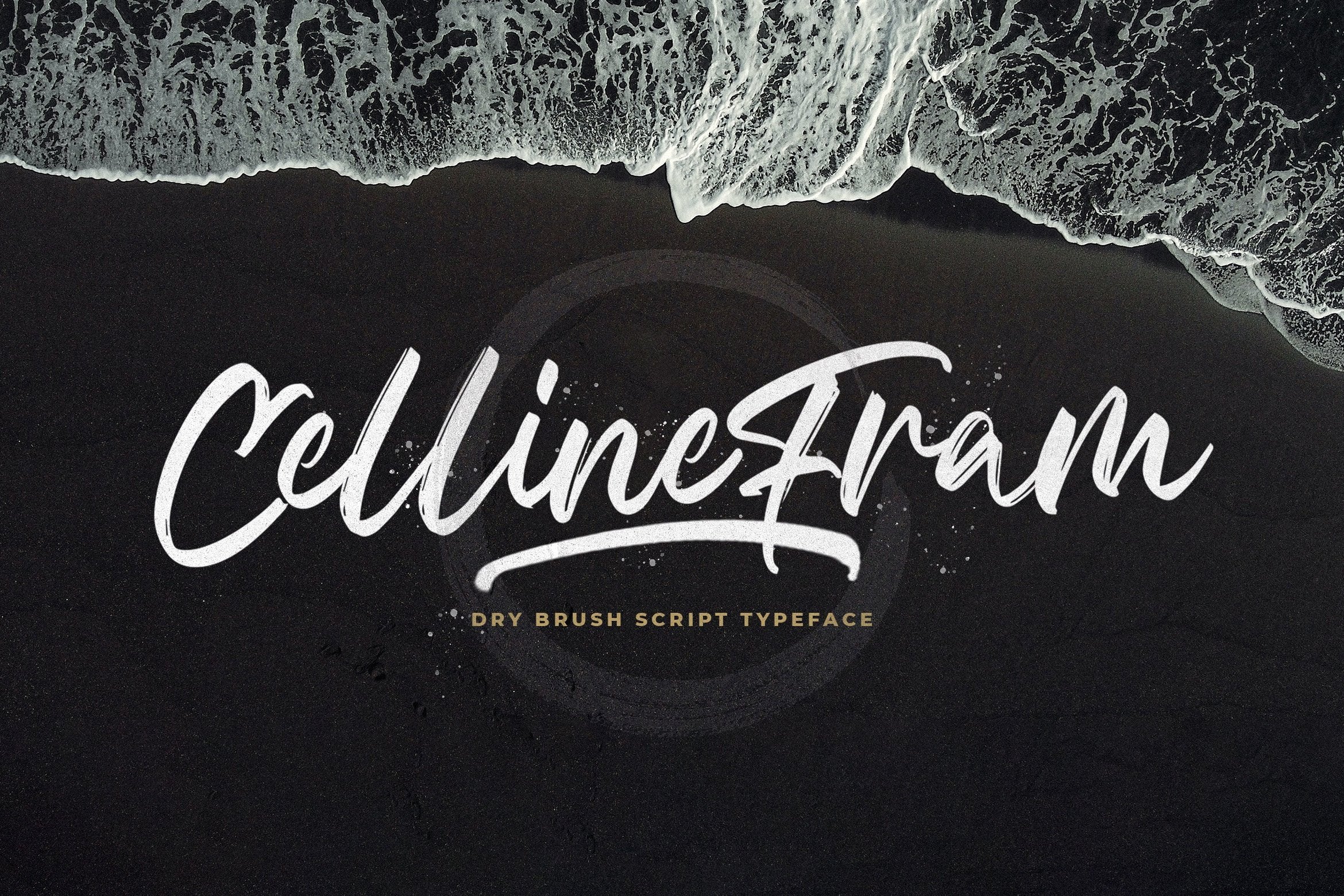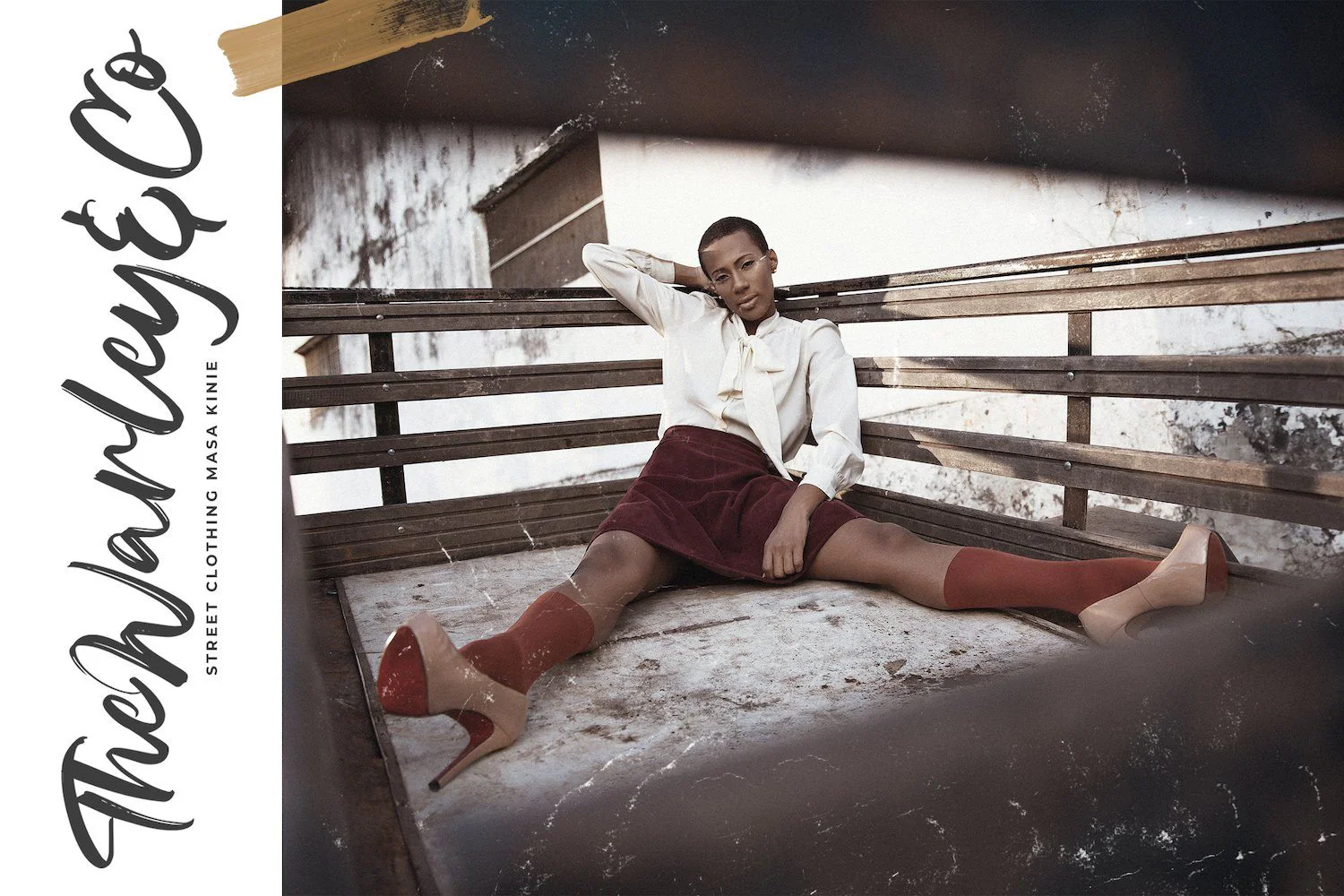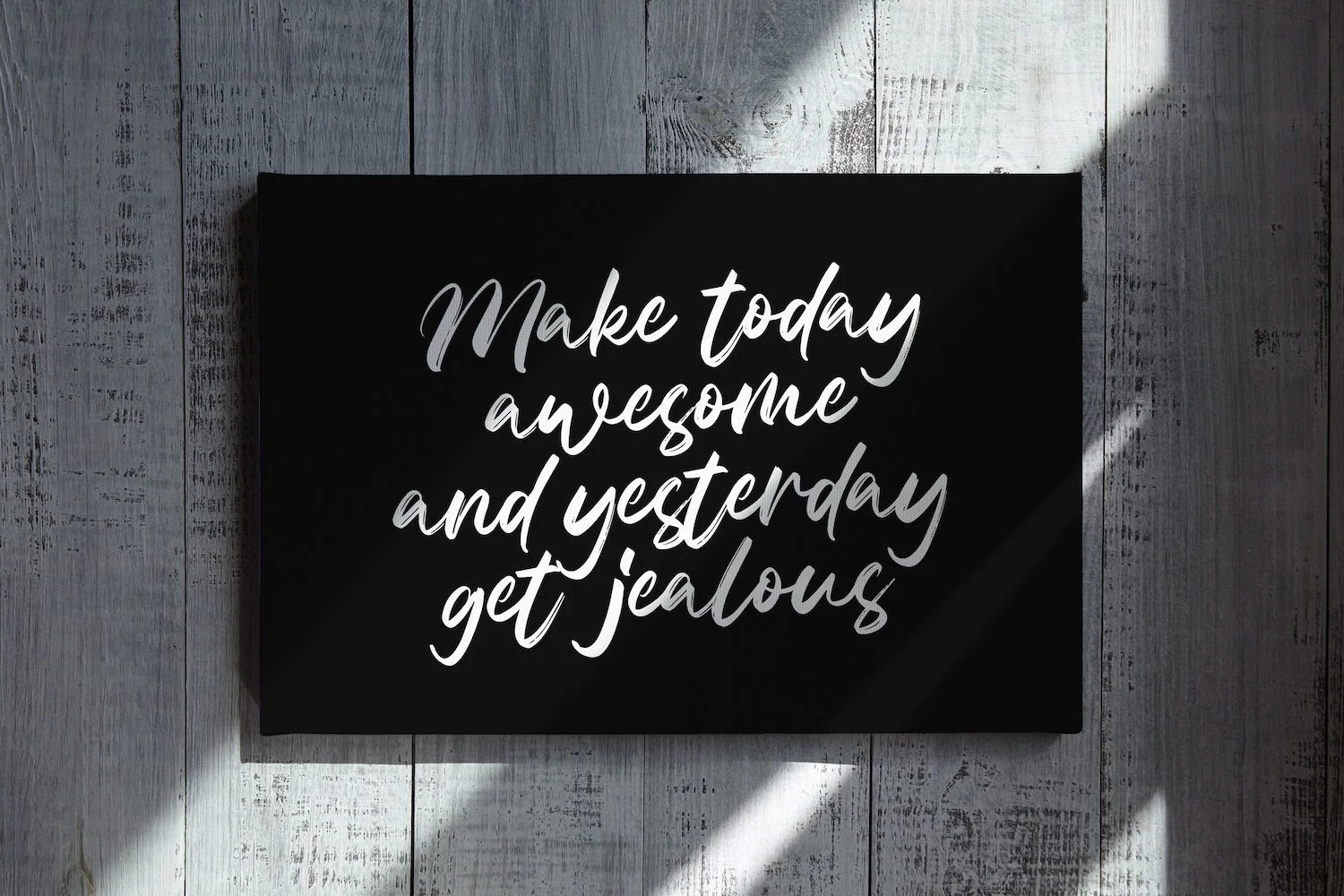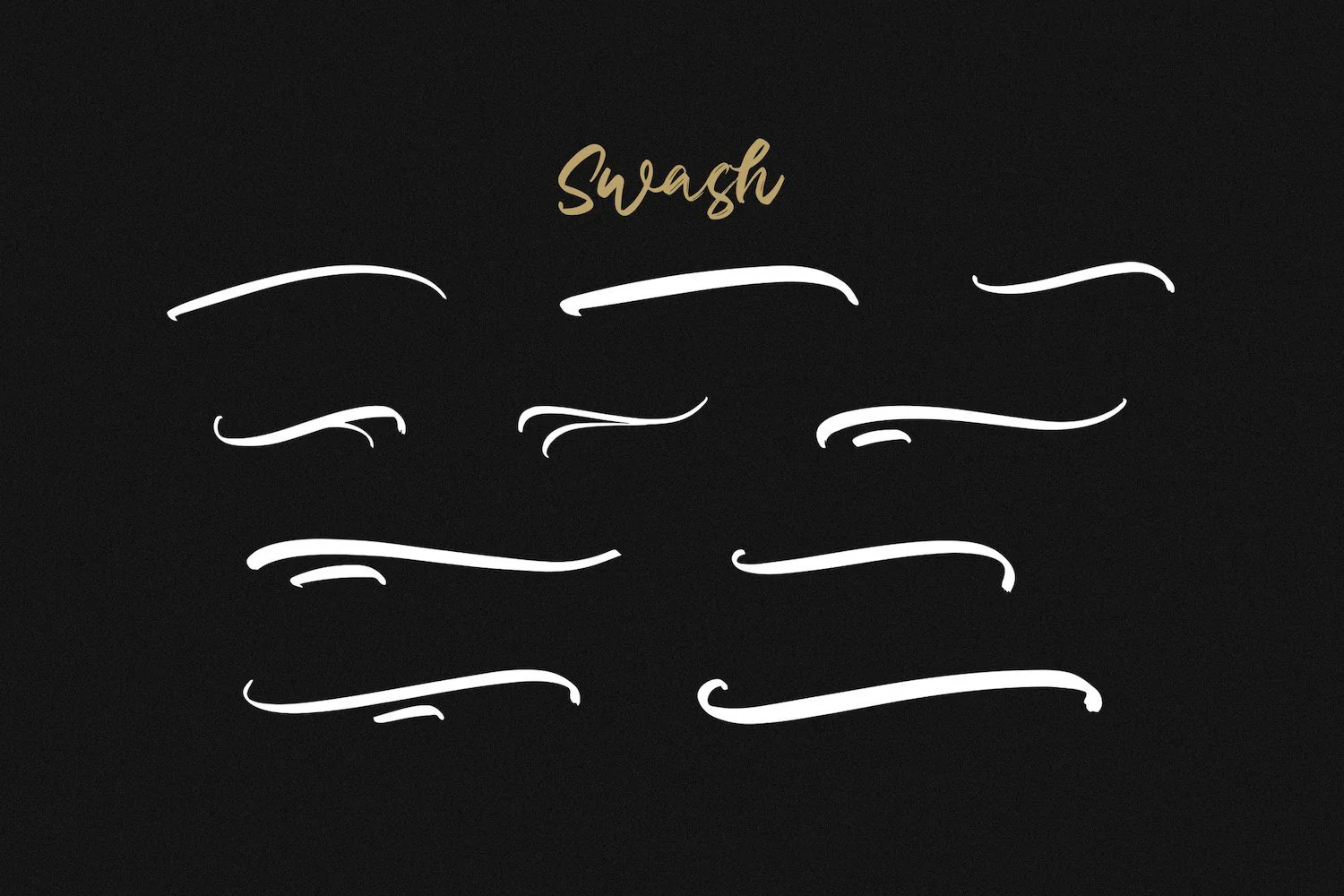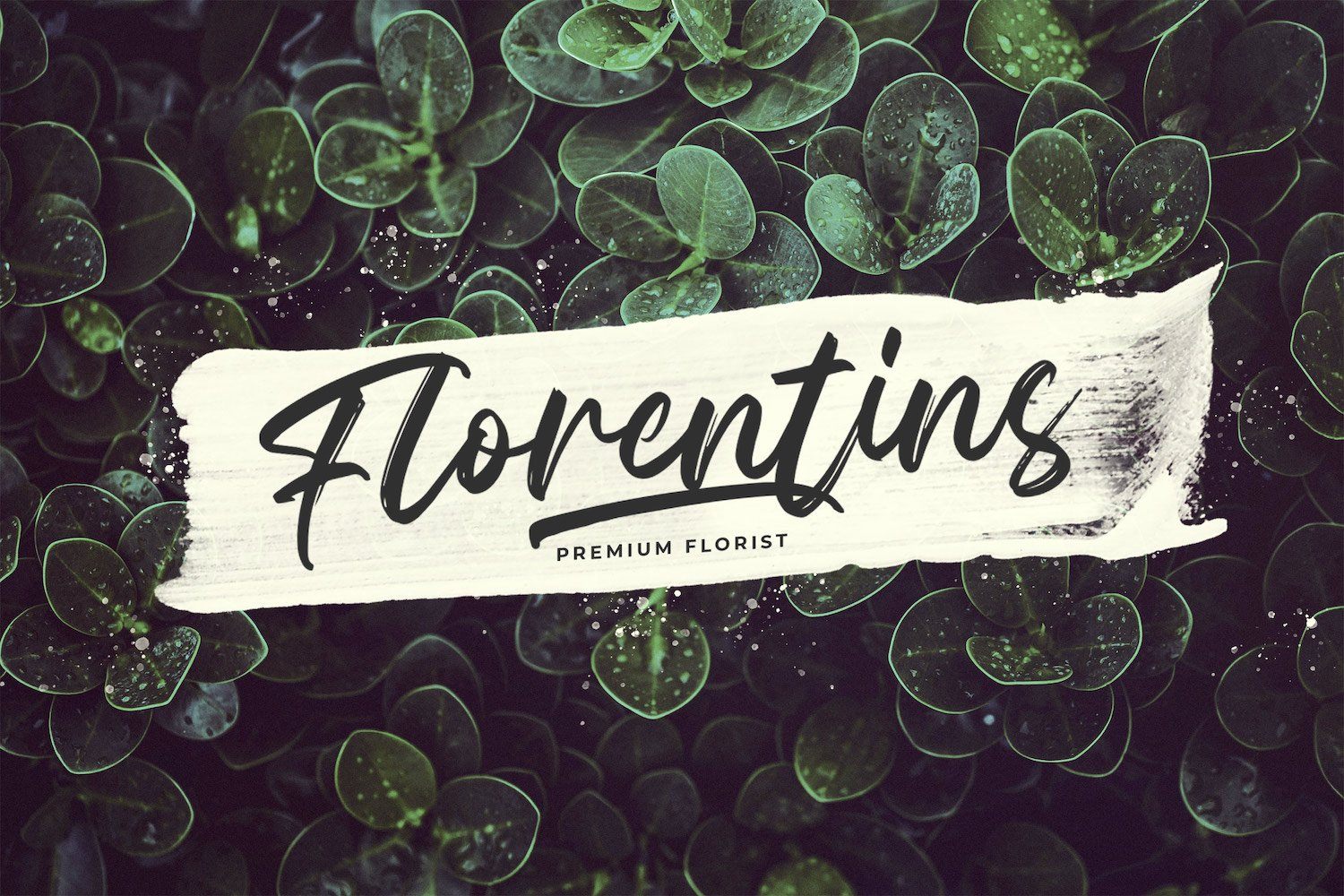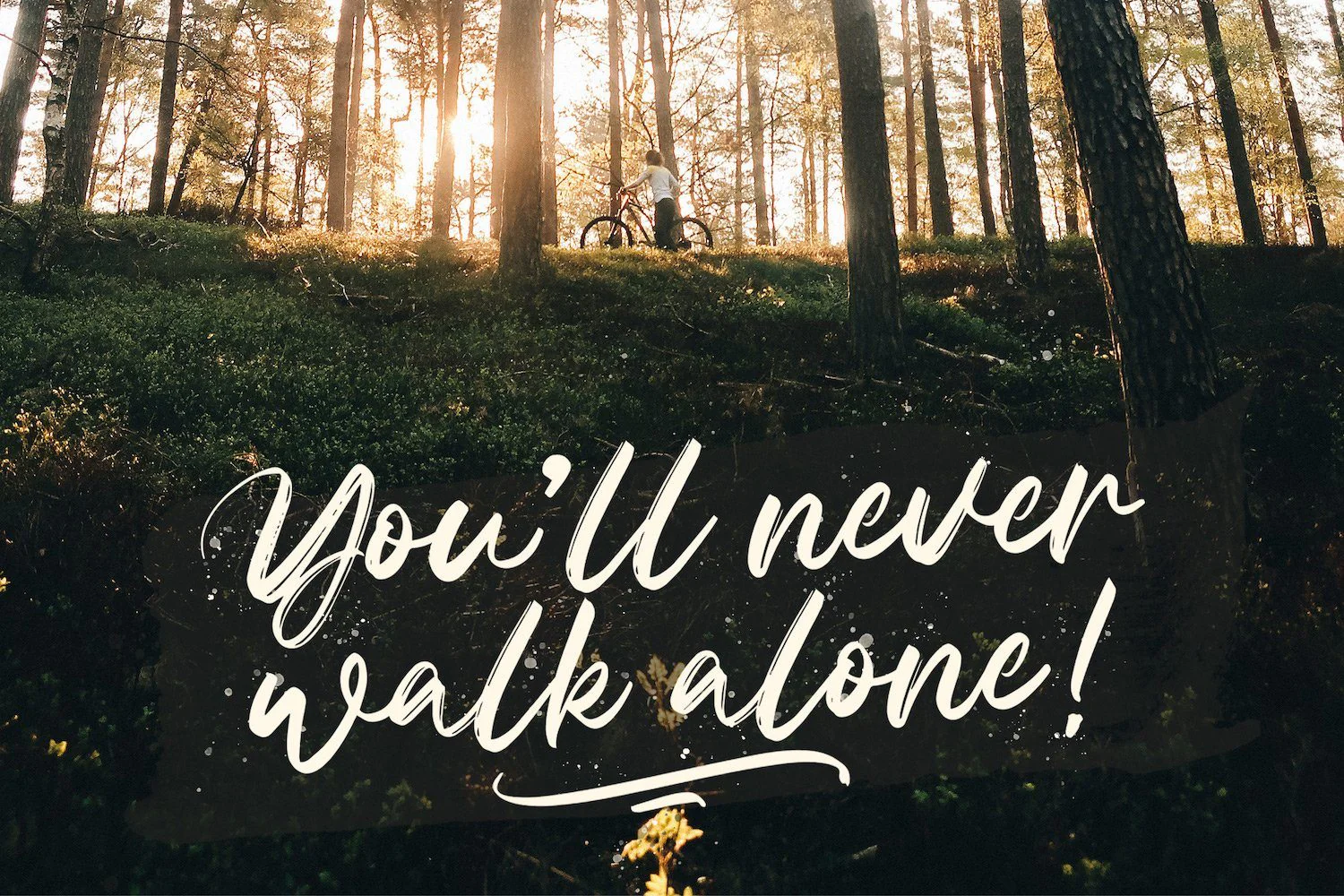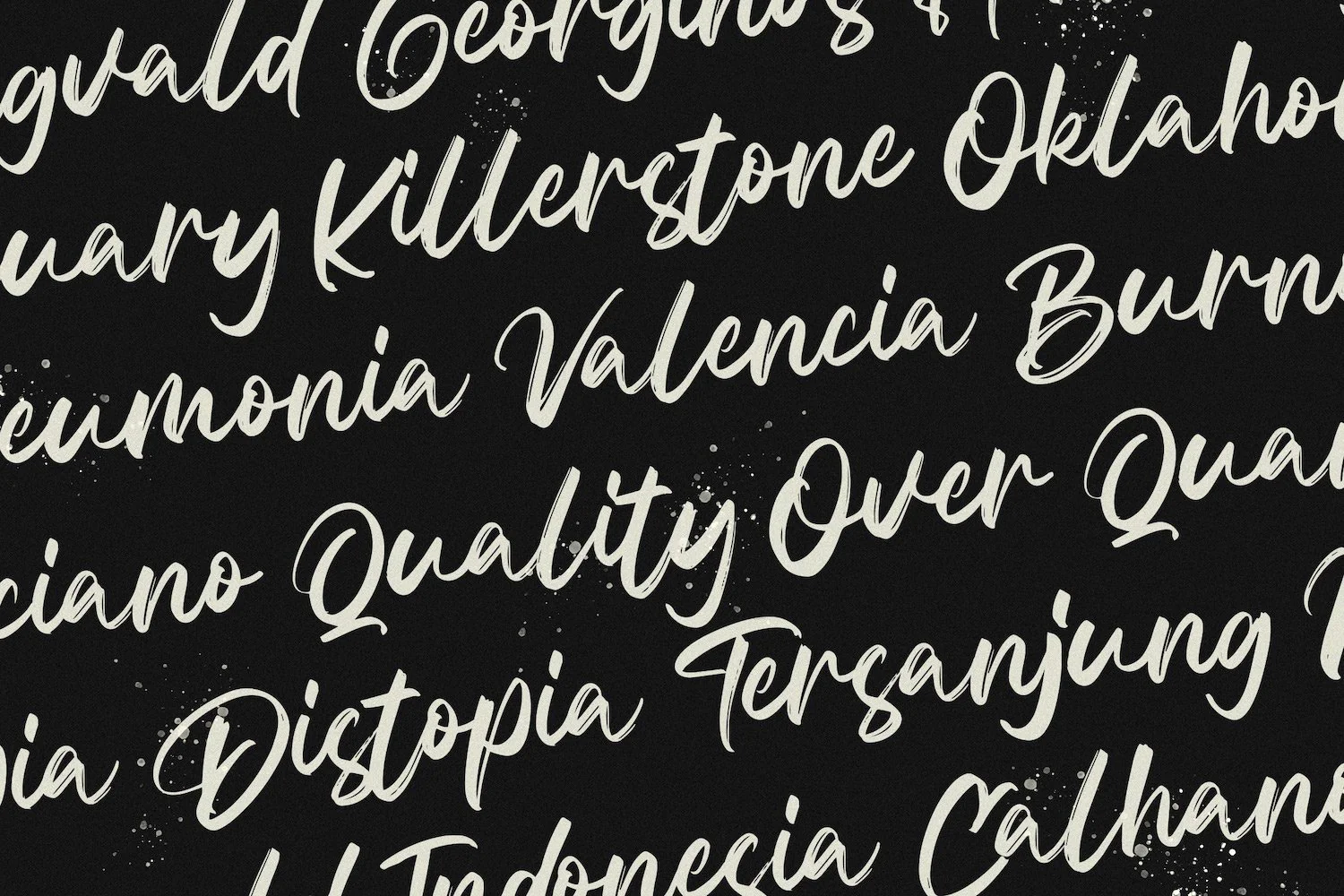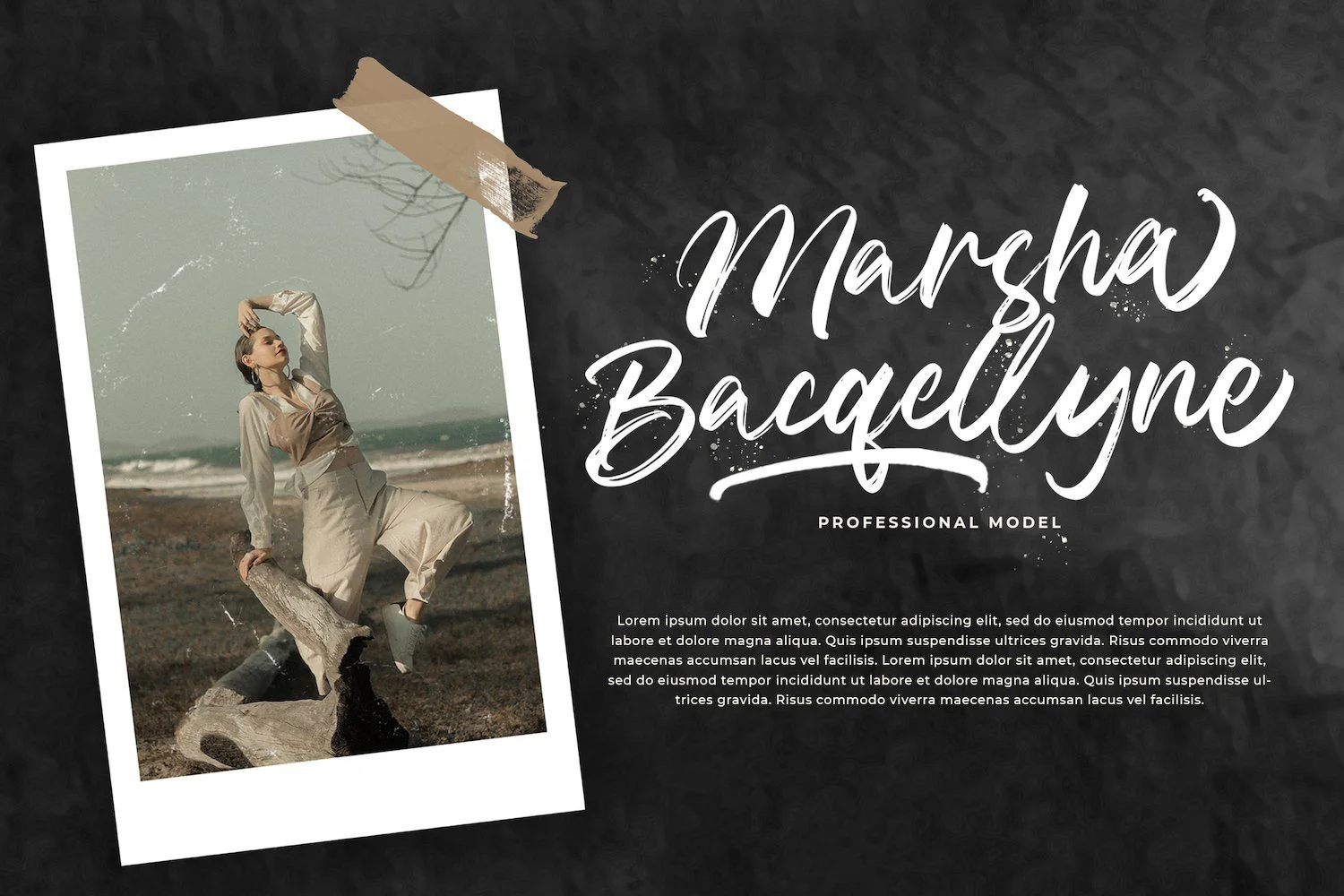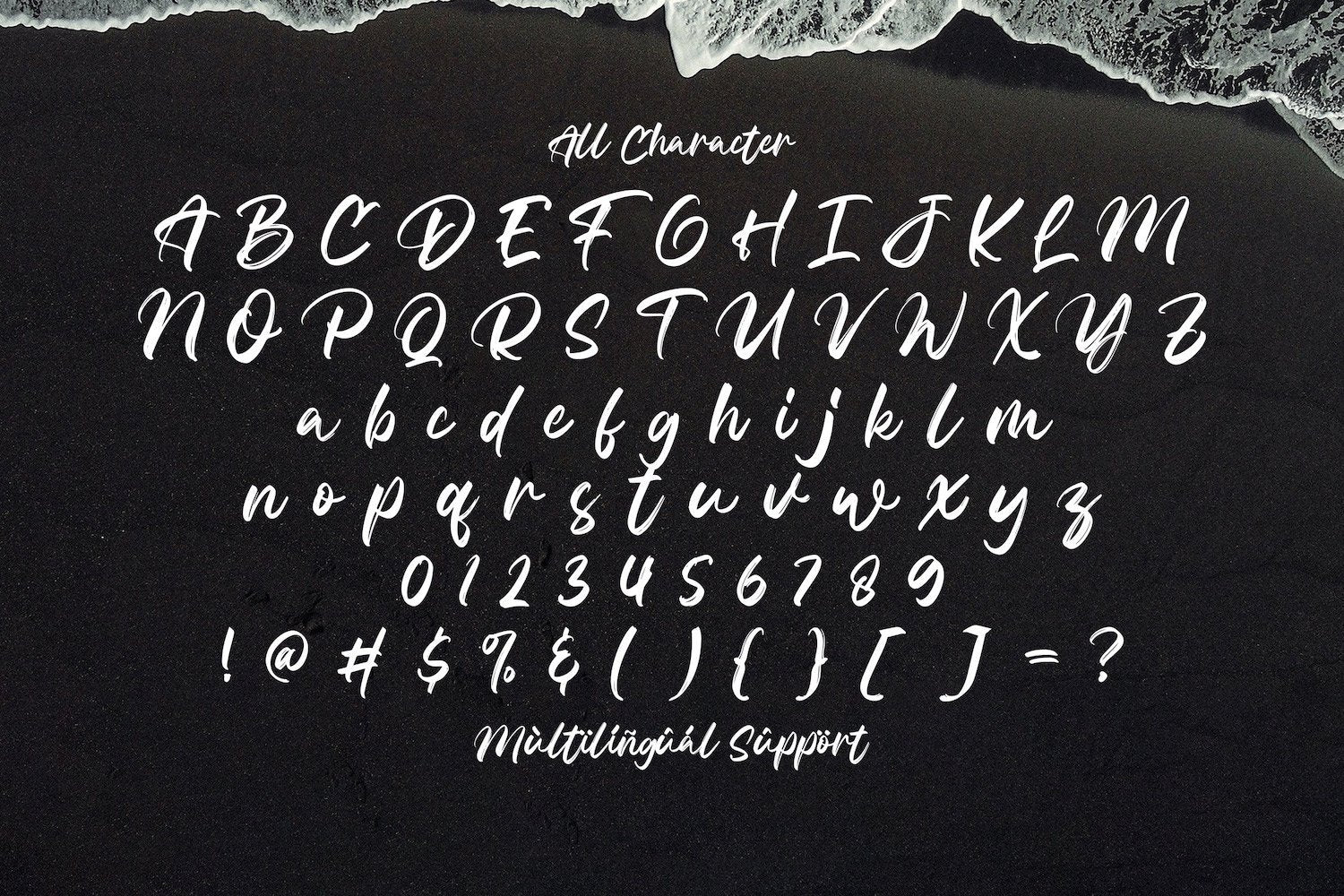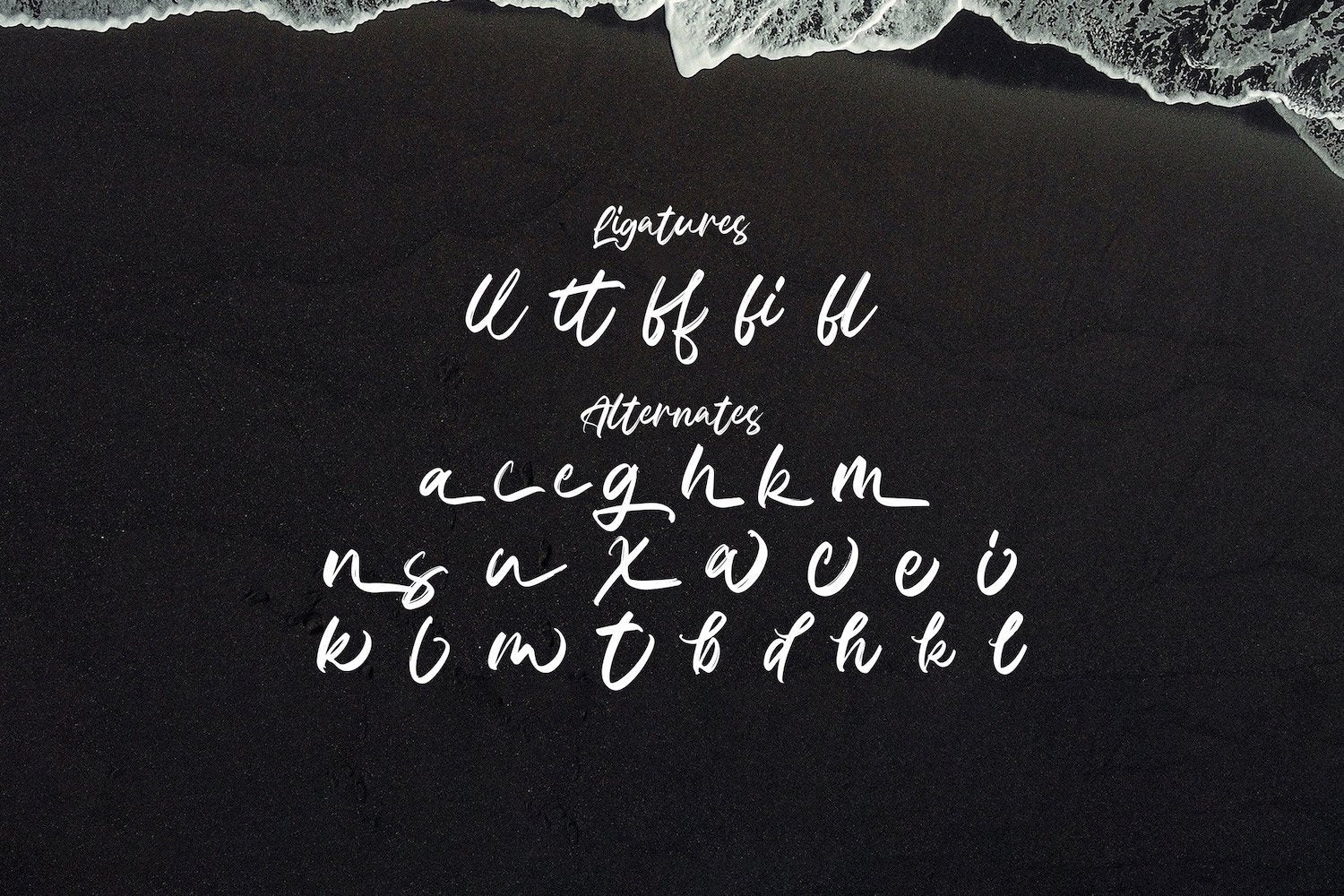
Celline Fram - Textured Brush Font
Introducing Celline Fram - Textured Brush Font
Celline Fram is a textured handbrush font. Get inspired by its unique and beautiful style and add it to your favorite designs!